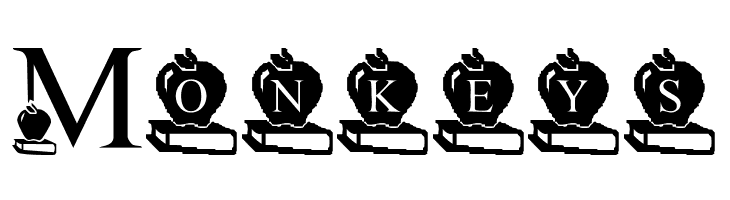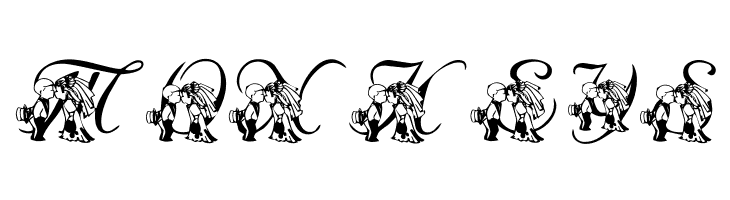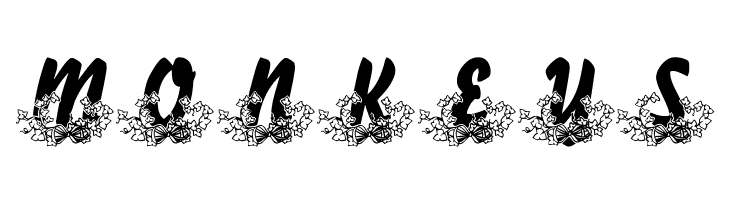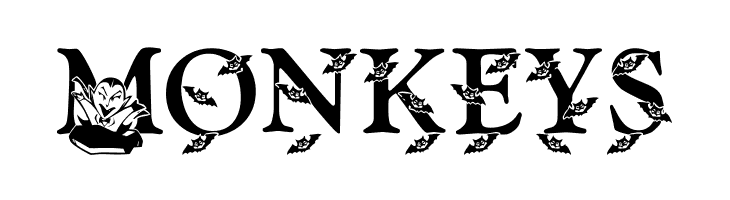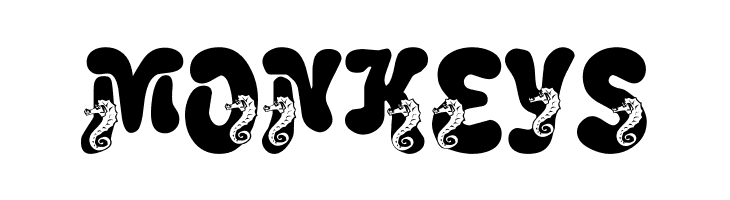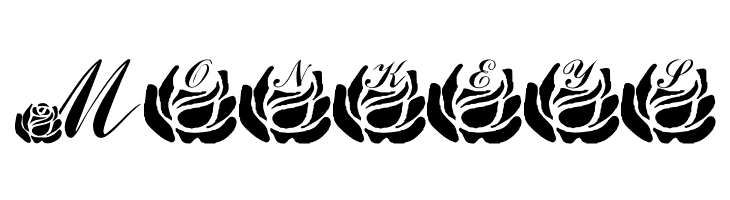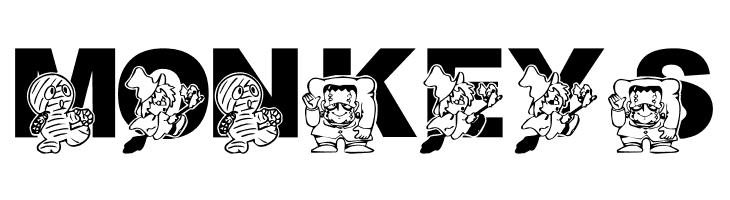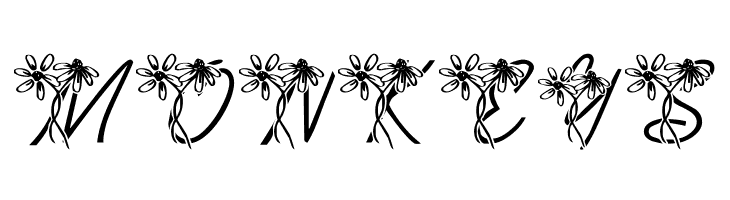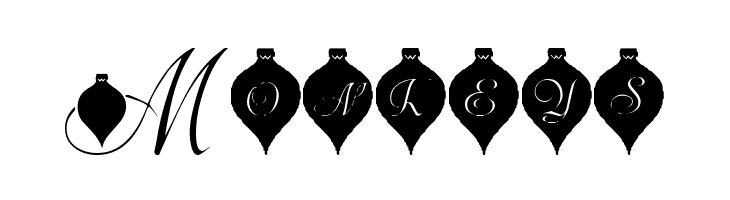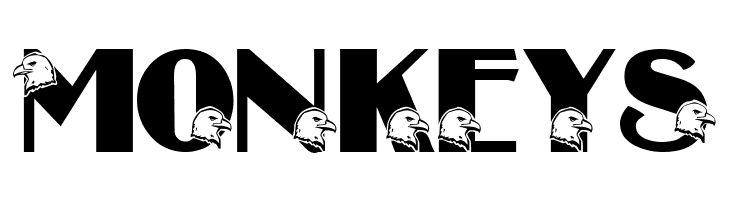
A playful, school-themed decorative font with apple and book motifs.
A decorative, whimsical font with intricate, storybook-style characters.
A decorative script font with ivy and ribbon embellishments.
A bold, gothic-inspired decorative font with intricate embellishments.
A bold, decorative font with seahorse embellishments, perfect for nautical themes.
A decorative script font with rose embellishments on each character.
A playful font with bold letters and cartoon characters in costumes.
A whimsical font with daisy-like floral embellishments on each character.
An elegant, ornament-themed decorative font with high contrast script characters.
A bold, decorative font featuring an eagle motif integrated into each letter.